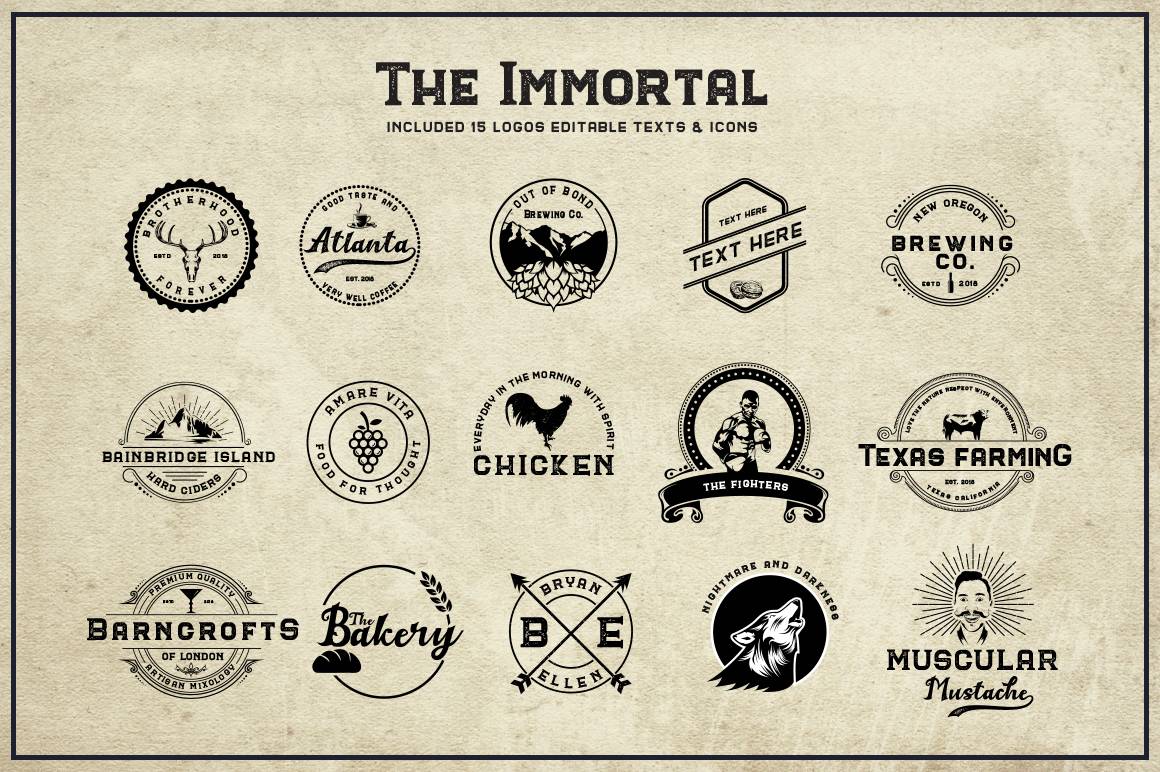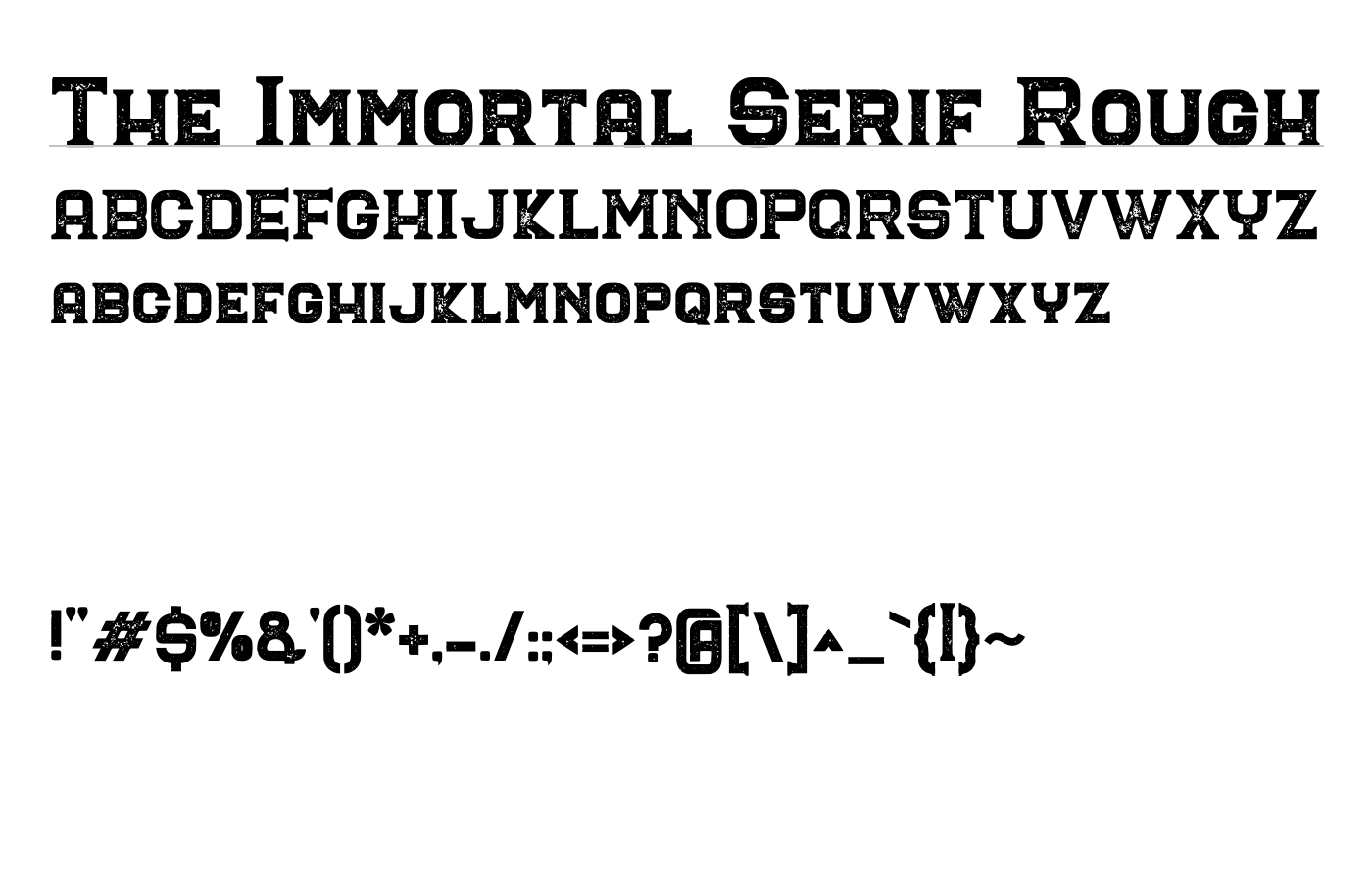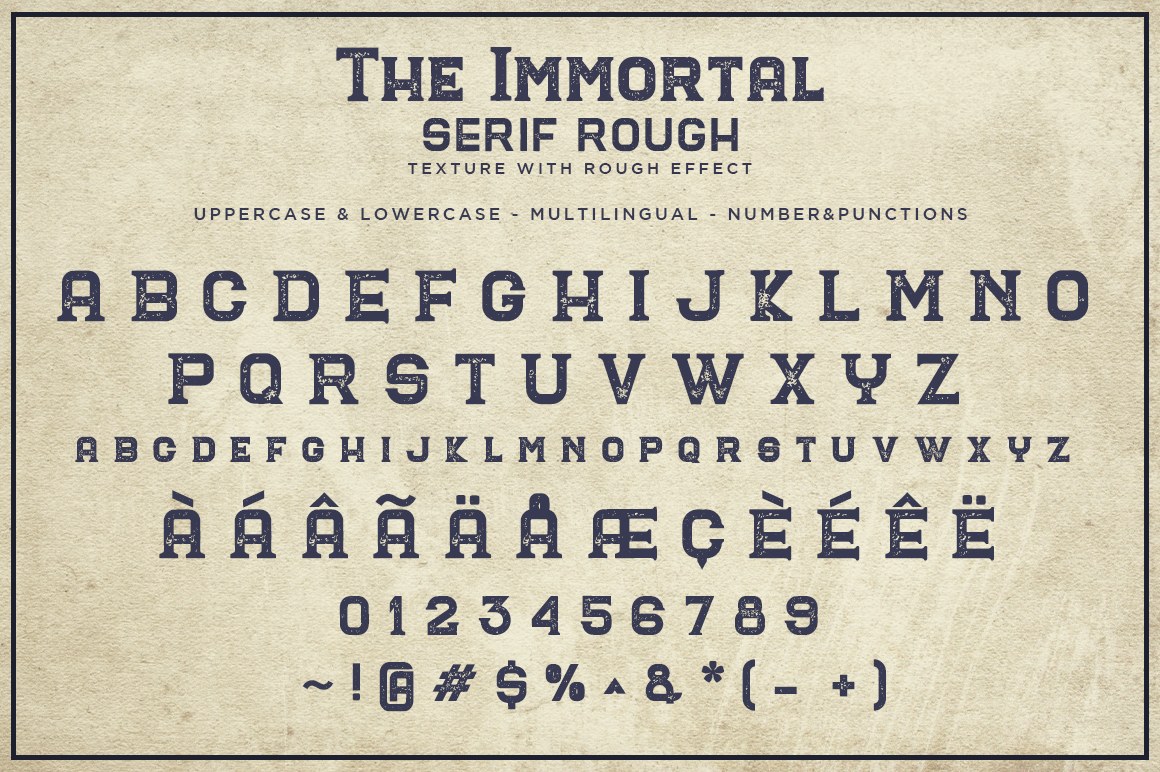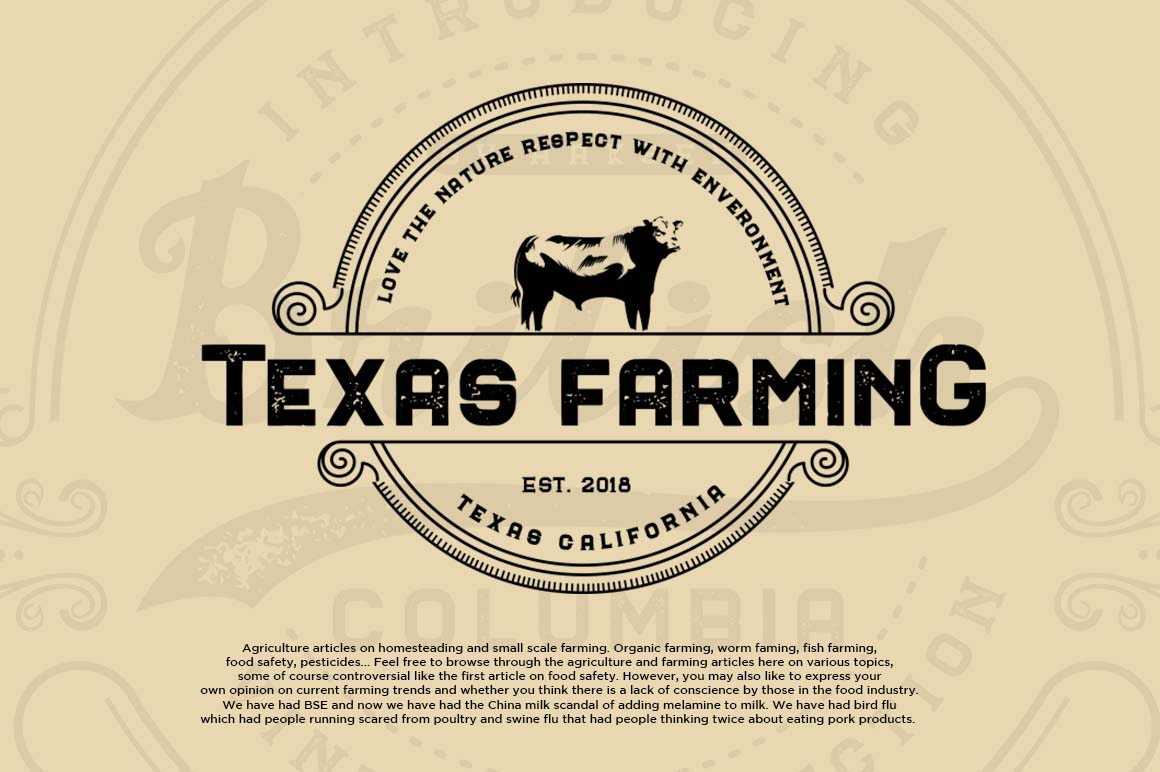
The Immortal is a bold slab serif font with strong, blocky shapes and a distinctive rough, textured finish that gives it a vintage, industrial feel. Its sturdy serifs and consistent stroke weight make it perfect for creating impactful headlines or logos that demand attention, especially in designs that aim for a rugged, timeless, or retro aesthetic. This font works well in branding, posters, and editorial projects where a bold, memorable statement is needed.
The Immortal
About The Immortal
| Font family | The Immortal |
| Designer | Haksen Letters |